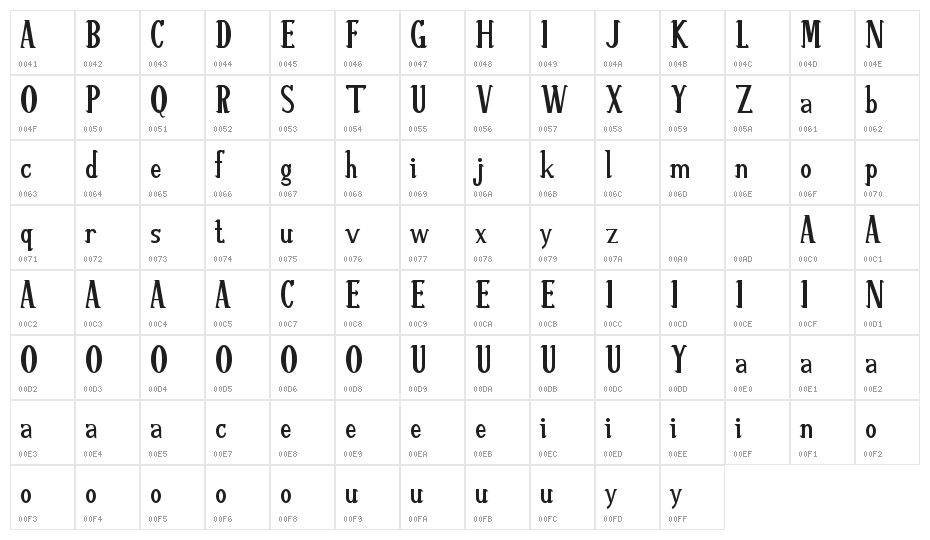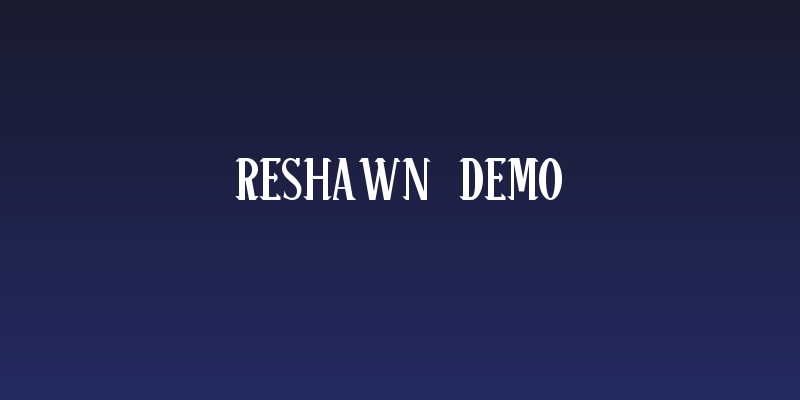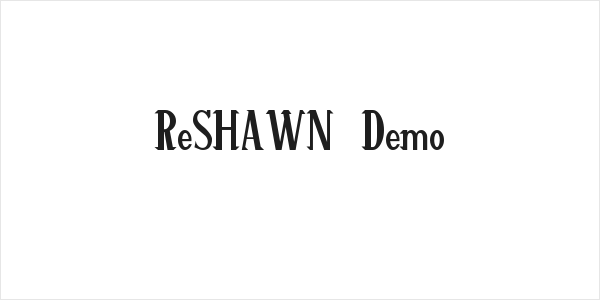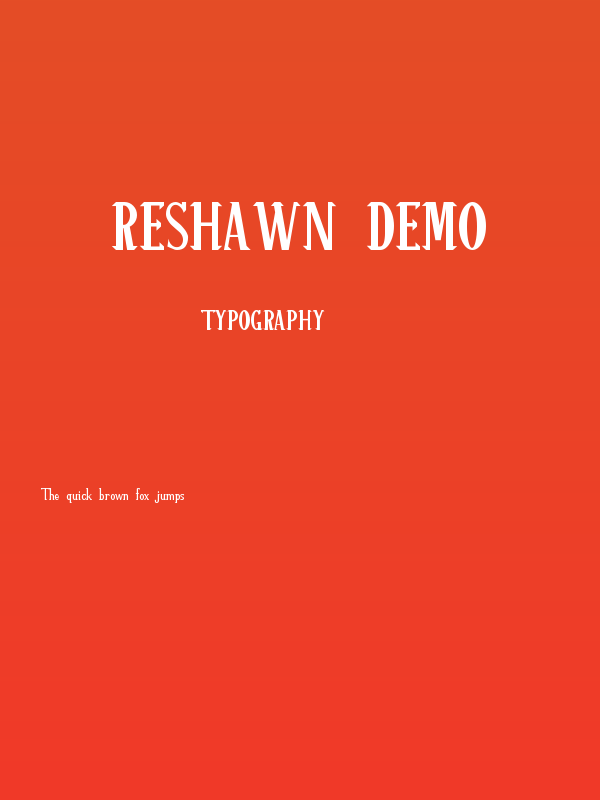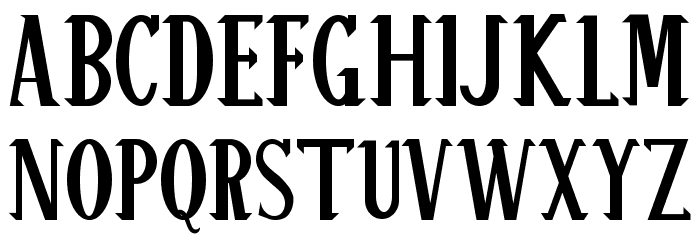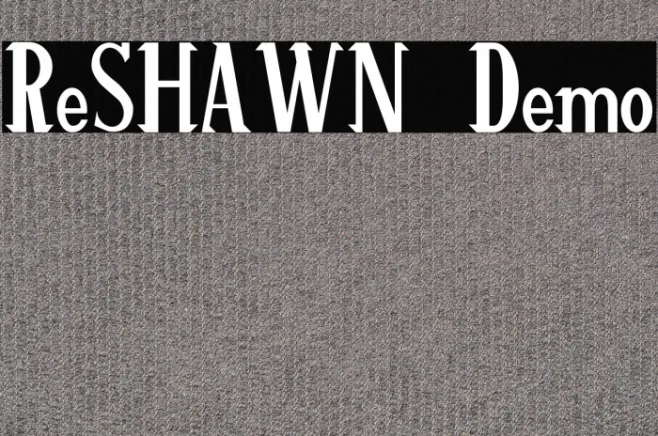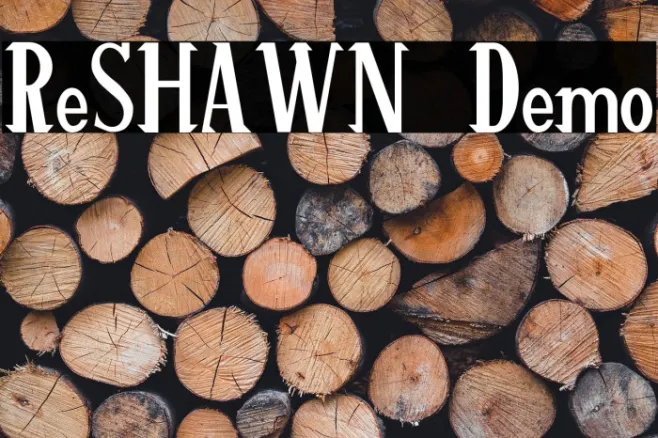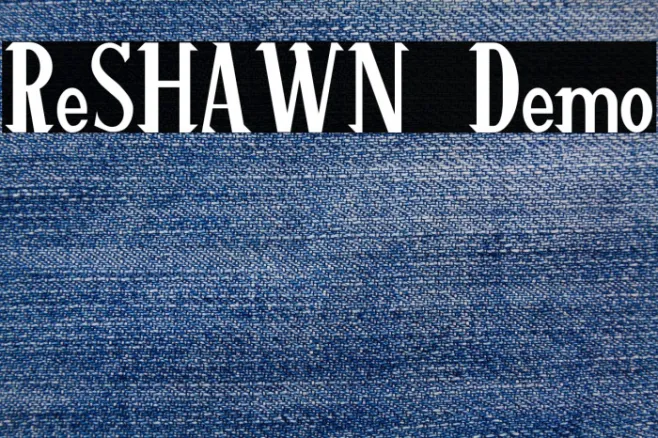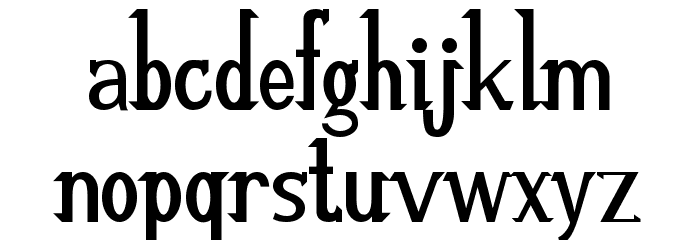
ReSHAWN Demo Font
ReSHAWN Demo Description
This font features a bold and dramatic style with high contrast between thick and thin strokes, giving it a striking and impactful appearance. The serifs are pronounced and angular, adding a touch of elegance and sophistication. The uppercase letters are tall and commanding, while the lowercase letters maintain a consistent style with slightly more subtle curves. The overall design is reminiscent of vintage typography, yet it maintains a modern flair. The numerals and special characters are crafted with the same attention to detail, ensuring a cohesive look across all text elements.
| Overall Style | Vintage, Modern |
| Proposed Projects | Ideal for branding, headlines, posters, and any project requiring a bold, elegant statement. |